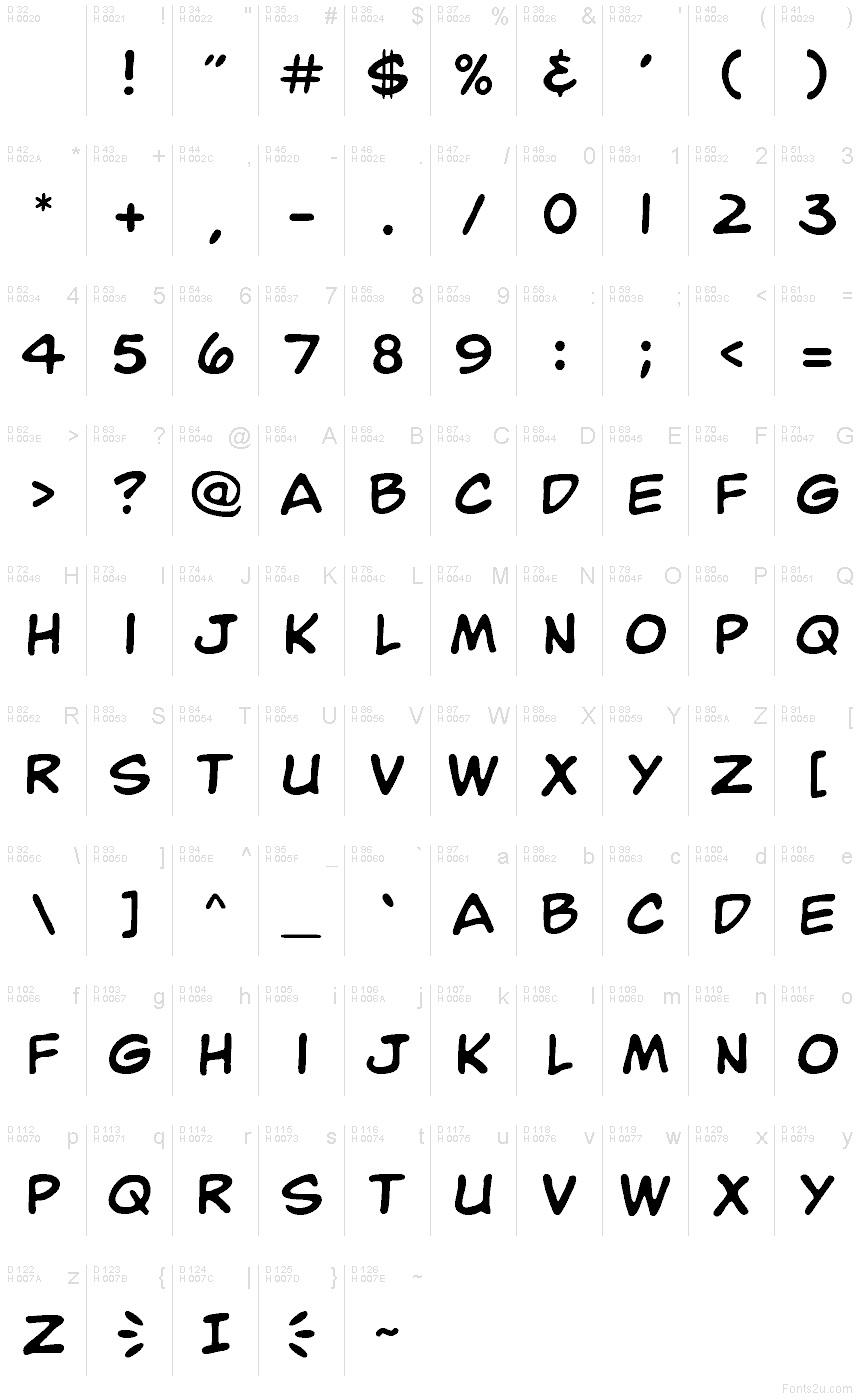
TC Blabberin'
TC Blabberin' font by Type City Font Co. is a free cartoon display typeface that talks as loud as it looks. Chunky, inky strokes and a loose, handwritten sway give it the feel of bold marker lettering scrawled in the margins of a comic book. The letters lean and bounce just enough to feel mischievous, while still staying clean and legible when you crank up the size.
Using TC Blabberin', you can give extra punch to comic sound effects, speech bubbles, kids’ book covers, snack packaging, playful logos, or bold YouTube thumbnails. This free font shines when it’s big and loud; keep it for headlines and pair it with a simple rounded sans serif for captions or supporting text.